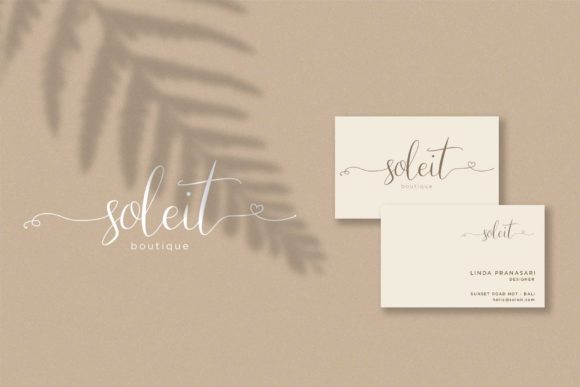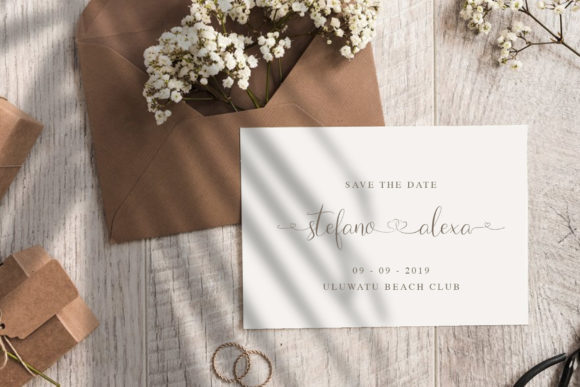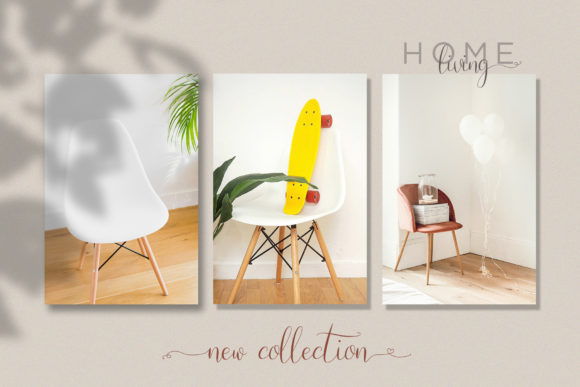
Introduction to Naibacarte Font
Have you ever been in the midst of a creative project, staring at a blank page or screen, searching for the perfect font to bring your idea to life? It’s a feeling many designers can relate to. That’s when I stumbled upon the Naibacarte Font – a charming, handwritten font that instantly captured my attention.
With its authentic vibe and high-quality design, the Naibacarte Font has quickly become a valuable resource for designers looking to add a personal touch to their projects. Whether you’re working on a free download or a commercial design, this font is sure to elevate your work and leave a lasting impression. And with its transparent background, it’s perfect for creating visually appealing graphics and designs that pop.
Key Features of Naibacarte Font
- High-quality font with a unique, creative design perfect for various projects
- Transparent background, making it ideal for design projects that require a clean and minimalist look
- Designed to be versatile and suitable for use in a wide range of creative projects, from logos to typography
Honest Review: Naibacarte Font
As a designer, I’m always on the lookout for high-quality design resources that can elevate my creative projects. Recently, I came across the Naibacarte Font, which promises a unique and stylish look. Let’s dive in and see how it fares.
- ✨ Unique design style that’s perfect for modern and trendy projects
- ✨ High-quality vector graphics that scale well for various applications
One of the standout features of the Naibacarte Font is its transparent background, which makes it easy to integrate into any design project. The font is also highly customizable, allowing you to adjust the style and size to fit your needs.
- ⚠️ Limited font styles available (only a few options to choose from)
- ⚠️ Not ideal for complex or large-scale designs (can be overwhelming with too many elements)
Overall, I’m impressed with the Naibacarte Font’s unique design style and high-quality graphics. While it may have some limitations, it’s a great addition to any designer’s toolkit, especially for creative projects that require a modern and trendy look.
Tips for Getting the Most Out of Naibacarte Font
For the best results, use the Naibacarte Font in conjunction with a high-contrast background to make your text stand out. Experiment with different font sizes and styles to add visual interest to your design.
The Naibacarte Font is ideal for a variety of creative projects, including:
- Brochure and flyer design
Alternatives to Naibacarte Font
The Great Vibes Font is a high-quality, handwritten font that is perfect for creative projects requiring a unique touch. It features a transparent background, making it ideal for overlaying on images. Great Vibes is a great alternative to Naibacarte Font for designers looking for a more elegant and sophisticated feel.
When to use: Great Vibes Font is suitable for wedding invitations, quotes, and other design elements that require a touch of elegance.
Comparison: Great Vibes Font is more elegant and sophisticated compared to Naibacarte Font, making it a great choice for projects that require a high-end feel.
The Alex Brush Font is a beautiful, handwritten font that is perfect for designers looking for a high-quality, creative font. It features a transparent background and is ideal for use in design projects that require a personal touch. Alex Brush Font is a great alternative to Naibacarte Font for designers who want to add a touch of sophistication to their designs.
When to use: Alex Brush Font is suitable for wedding invitations, quotes, and other design elements that require a touch of elegance.
Comparison: Alex Brush Font is more elegant and refined compared to Naibacarte Font, making it a great choice for projects that require a high-end feel.
Yes, the Naibacarte Font is designed to be used on projects with transparent backgrounds. Its transparent background feature allows it to blend seamlessly with other design elements, making it perfect for creative projects that require a touch of elegance.